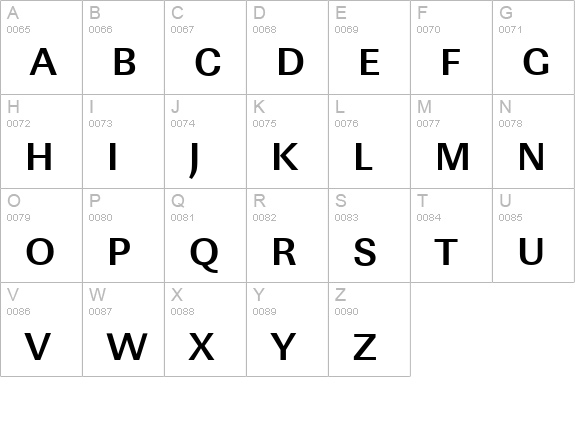
LinearStd-Bold is a strong, high-contrast variant in the LinearStd typeface family \xE2\x80\x94 well suited to headlines, attention-grabbing titles, and strong calls-to-action.
LinearStd-Bold is a modern and versatile sans-serif font that exudes strength and sophistication. Its bold weight makes it perfect for headlines, logos, and other design projects where you want to make a bold statement. The clean lines and sharp edges of this font add a touch of contemporary elegance to any design. And the best part? LinearStd-Bold is available for free download at FontsMarket.com, making it accessible to anyone looking to elevate their design projects with a touch of style and flair. Don't miss out on the opportunity to enhance your work with this sleek and impactful font. Download LinearStd-Bold today and take your designs to the next level!